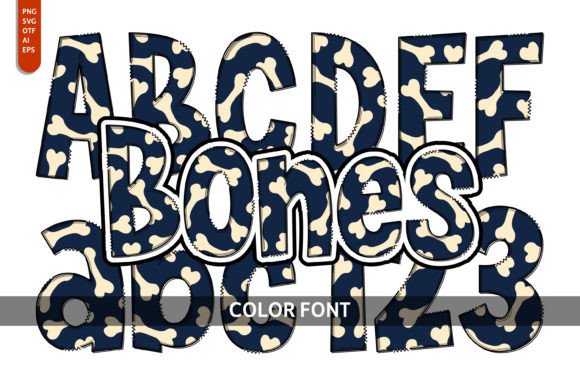
The Spooky-Chic Font That’s Got Everyone Talking: Bones Font
I’ll never forget the time I was working on a Halloween-themed project for a client, and I just couldn’t find the right font to capture the spooky-chic vibe they were looking for. I scoured the internet, tried out dozens of fonts, but nothing seemed quite right. That was until I stumbled upon Bones Font – a whimsical and playful color font that adds a touch of spookiness to any design. In this article, I’ll share my experience with Bones Font, and show you how to make the most of its features.
An Honest Review of Bones Font
What I Love About Bones Font
- ✨ Cute skeletal characters that are sure to bring a smile to your face
- ✅ Perfect for Halloween-themed projects, haunted house events, or any design that needs a dash of fun and mischief
- 🎃 Whimsical and playful design that’s sure to stand out
- 💻 Works great with OpenType features, allowing for a range of customization options
While I absolutely love Bones Font, there are a few quirks to be aware of. For example, <⚠️ some characters may not work well in non-OpenType compatible software ⚠️>. Additionally, <🤔 the font may not be suitable for very formal or professional designs 🤔> due to its playful nature.
The Designer’s Inspiration Behind Bones Font
Bones Font was designed with the goal of creating a font that’s both spooky and playful. The designer wanted to create a font that would capture the whimsy and fun of Halloween, while still being legible and easy to use. The result is a font that’s perfect for designers, crafters, and creative hobbyists who want to add a touch of mischief to their designs.
Q: What type of designs is Bones Font best suited for?
A: Bones Font is perfect for Halloween-themed projects, haunted house events, or any design that needs a dash of fun and mischief.
Q: Is Bones Font compatible with OpenType features?
A: Yes, Bones Font is fully compatible with OpenType features, allowing for a range of customization options.
Q: How do I access the glyphs and stylistic alternates in Bones Font?
A: You can access the glyphs and stylistic alternates in Bones Font by using the OpenType features in compatible software.